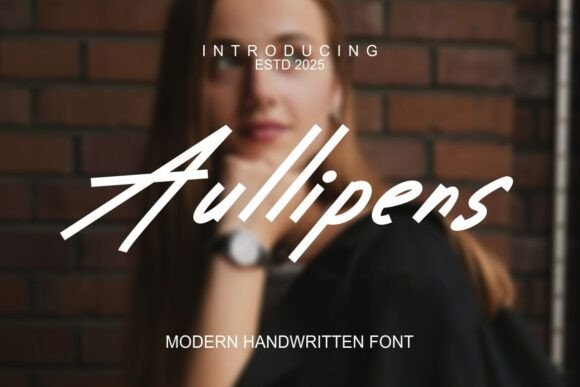
Aullipens Font: Elevate Your Design with a Dynamic and Stylish Handwritten Script
In the world of typography, fonts play a crucial role in conveying the tone and personality of a brand. A well-crafted font can instantly elevate a design, making it more engaging, memorable, and impactful. One such font that has been making waves in the design community is Aullipens, a dynamic and stylish handwritten script font that brings a modern and personal touch to any project.
Aullipens: A Modern and Personal Touch
Aullipens is a beautifully crafted handwritten script font that exudes confidence and artistic flair. Its fluid strokes and elegant slant make it perfect for a wide range of design applications, from fashion branding and signature logos to social media graphics and lifestyle projects. The font’s unique charm lies in its ability to strike a balance between modernity and personality, making it an excellent choice for designers looking to create a lasting impression.
One of the standout features of Aullipens is its fluid strokes, which give the font a sense of movement and dynamism. The elegant slant of the letters adds a touch of sophistication, making it ideal for high-end fashion brands, luxury lifestyle projects, and creative agencies. The font’s modern and personal touch also makes it perfect for social media graphics, blogs, and digital publications.
Design Applications for Aullipens
Aullipens is a versatile font that can be used in a variety of design applications. Here are some of the most popular uses for this dynamic and stylish handwritten script font:
- Fashion Branding: Aullipens is perfect for fashion brands looking to create a stylish and sophisticated visual identity. The font’s elegant slant and fluid strokes make it ideal for logo design, packaging, and advertising campaigns.
- Signature Logos: The font’s unique charm and personality make it an excellent choice for signature logos, monograms, and wordmarks.
- Social Media Graphics: Aullipens can be used to create engaging social media graphics, including Instagram posts, Facebook headers, and Twitter graphics.
- Lifestyle Projects: The font’s modern and personal touch makes it perfect for lifestyle projects, such as travel blogs, food blogs, and wellness websites.
Typography Tips for Using Aullipens
When using Aullipens in your design projects, here are some typography tips to keep in mind:
- Pair with Neutral Fonts: Aullipens works best when paired with neutral fonts, such as sans-serif or serif fonts. This helps to create contrast and balance in your design.
- Use Varied Font Sizes: Experiment with different font sizes to create visual hierarchy and emphasis in your design.
- Pay Attention to Kerning: Make sure to adjust the kerning between letters to ensure that the font looks balanced and harmonious.
The Benefits of Using Aullipens
Aullipens offers a range of benefits for designers and brands looking to elevate their visual identity. Here are some of the key advantages of using this dynamic and stylish handwritten script font:
- Unique Personality: Aullipens has a unique personality that sets it apart from other fonts. Its fluid strokes and elegant slant make it instantly recognizable.
- Versatility: The font can be used in a wide range of design applications, from fashion branding to social media graphics.
- Modern and Personal Touch: Aullipens brings a modern and personal touch to any design, making it perfect for brands looking to connect with their audience.
In conclusion, Aullipens is a dynamic and stylish handwritten script font that brings a modern and personal touch to any design project. Its fluid strokes and elegant slant make it perfect for fashion branding, signature logos, social media graphics, and lifestyle projects. With its unique personality, versatility, and range of benefits, Aullipens is an excellent choice for designers and brands looking to elevate their visual identity.